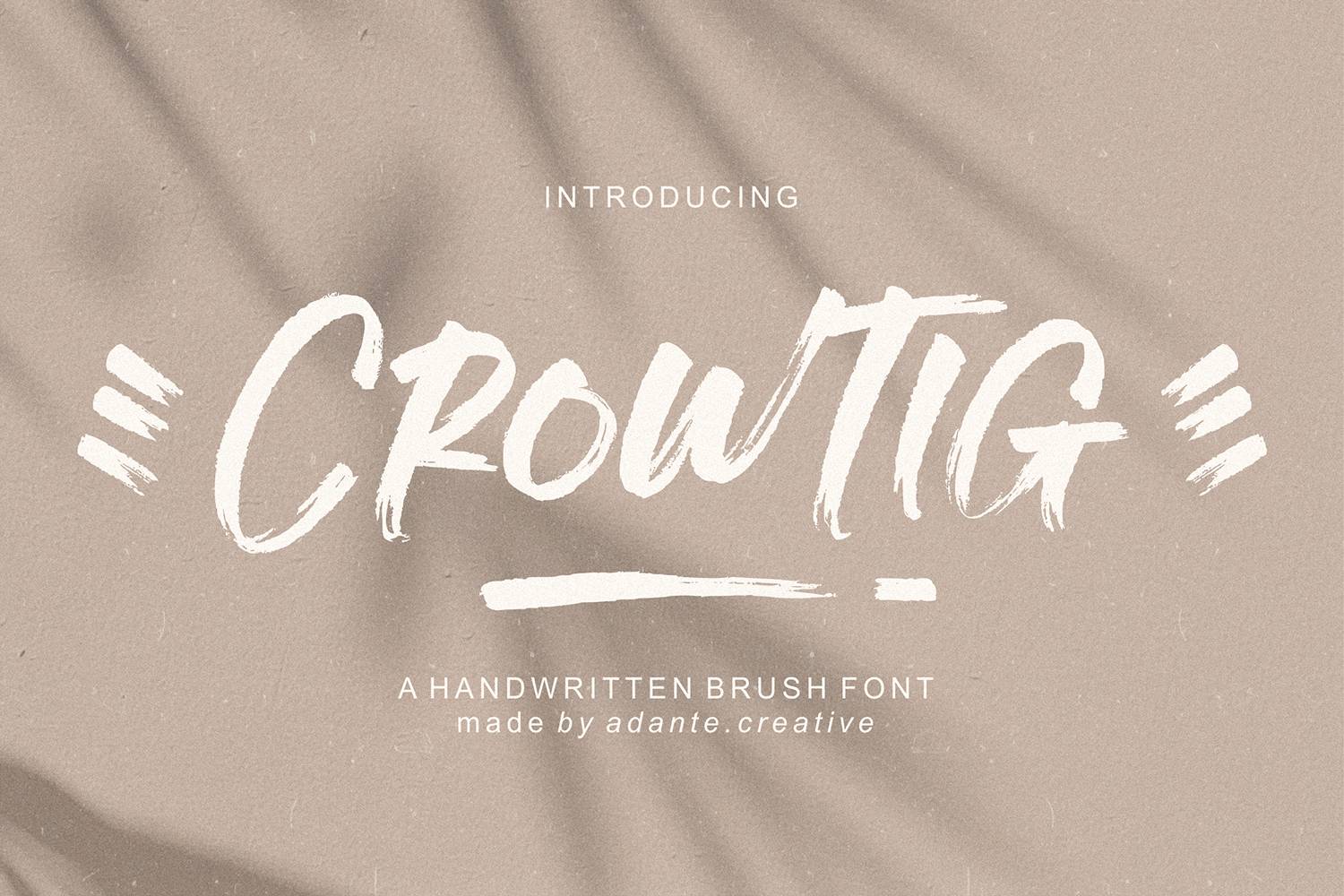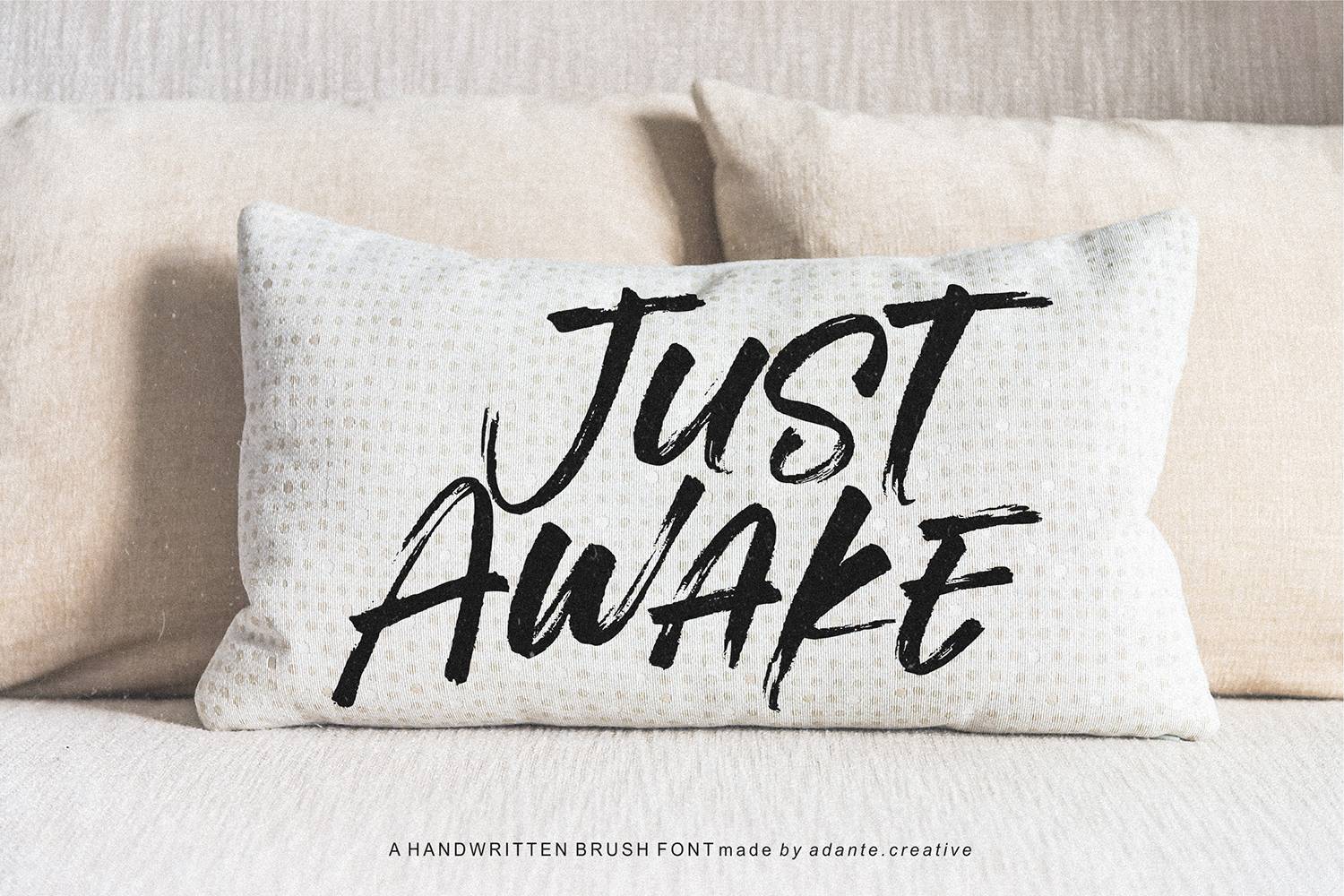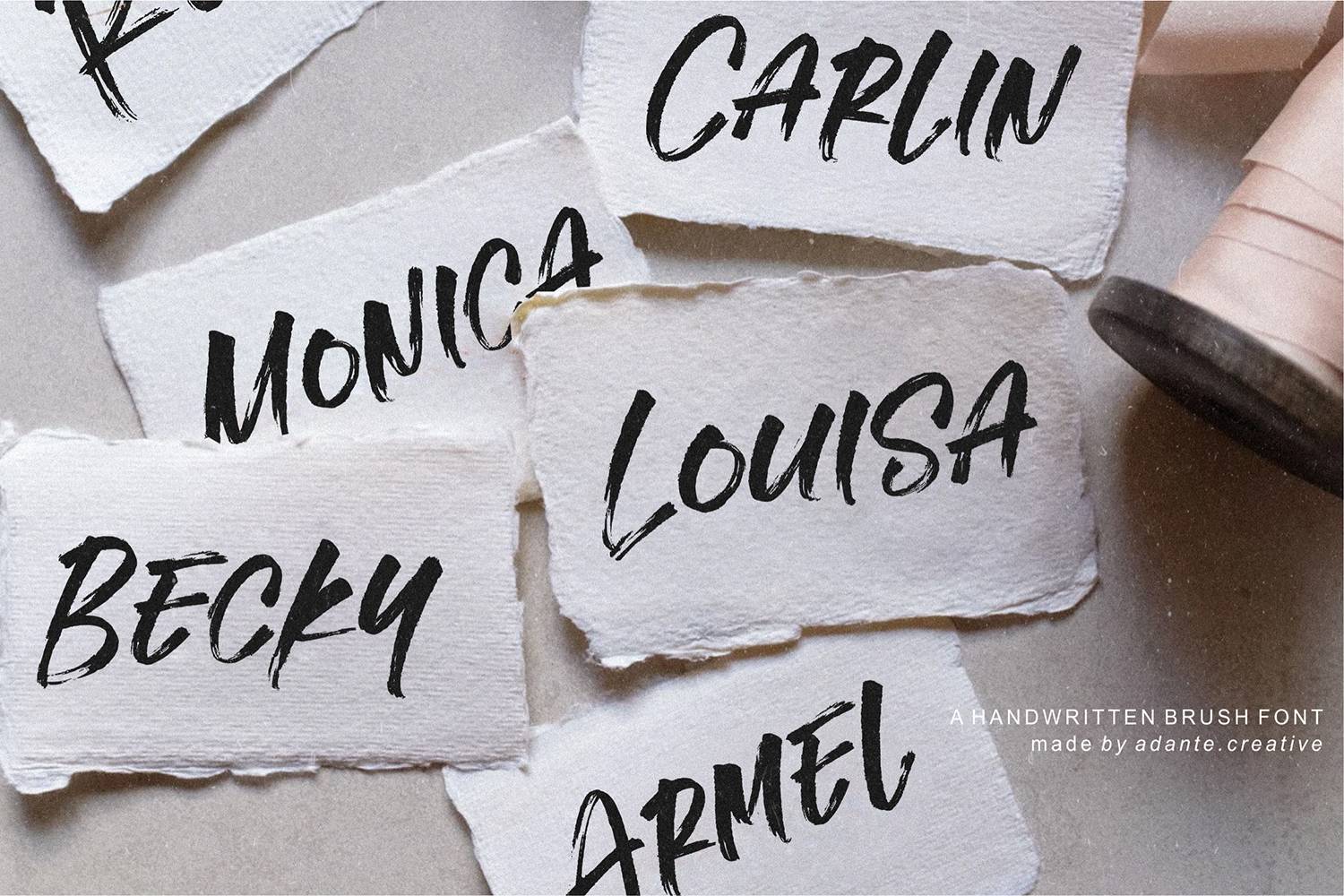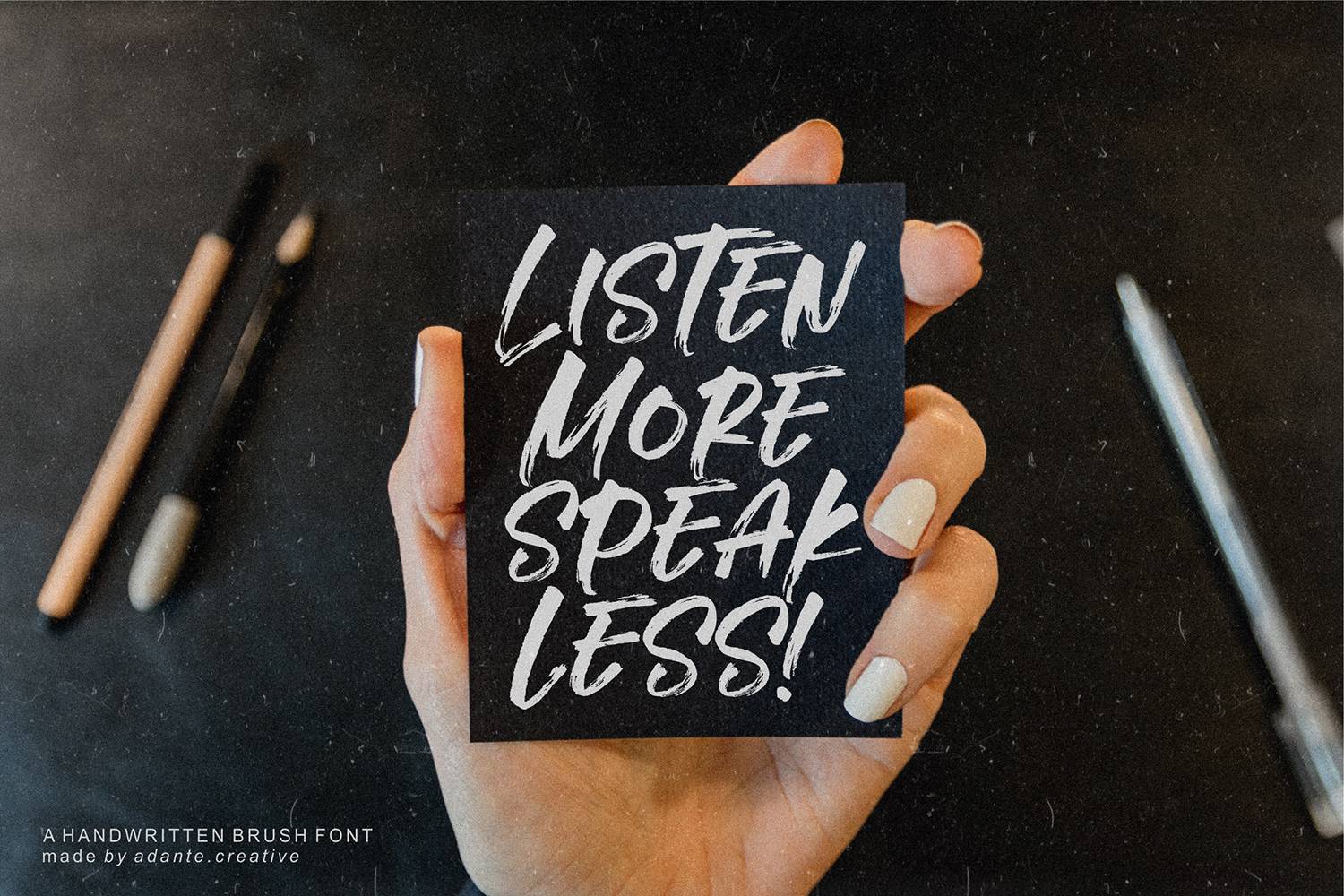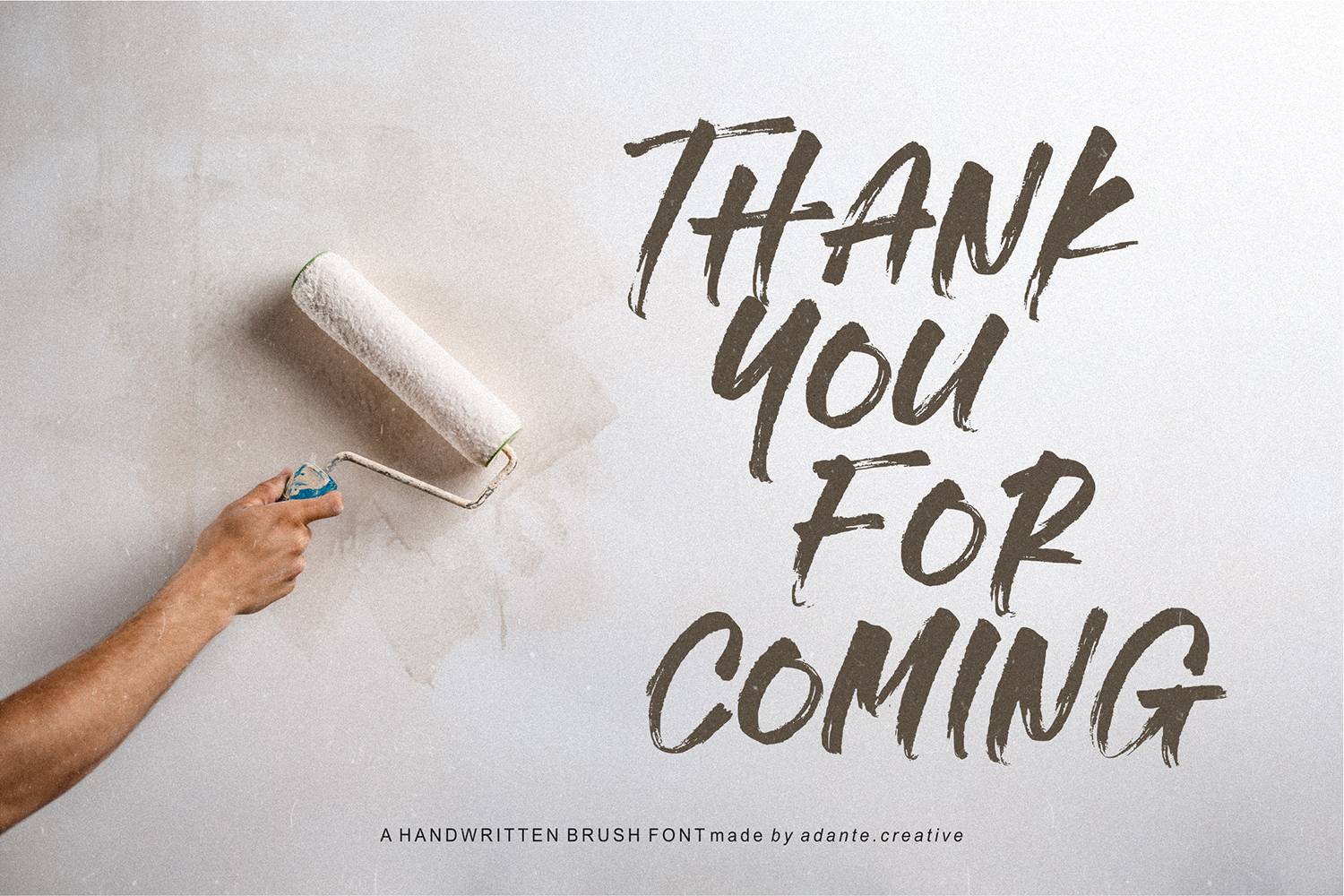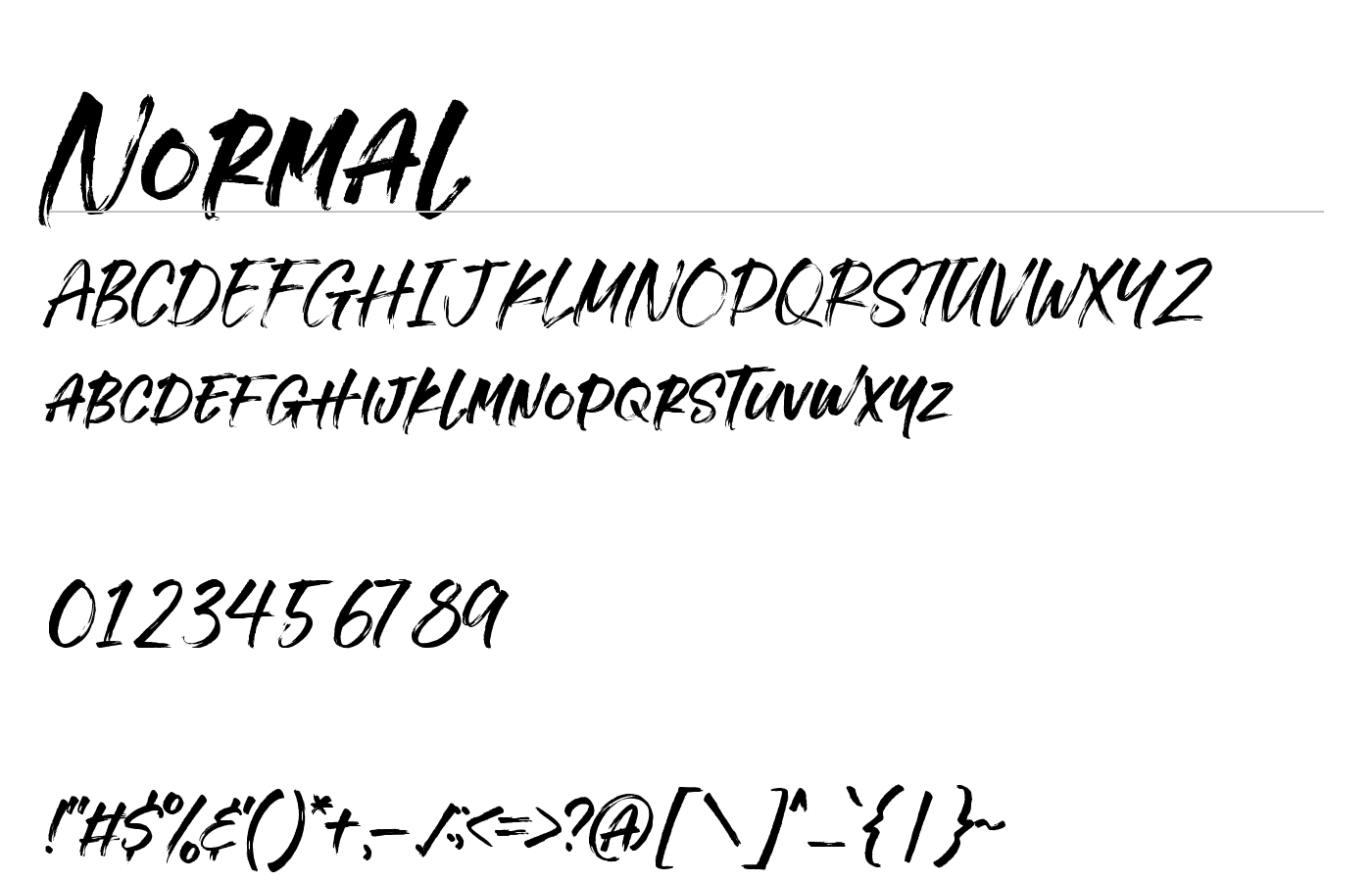
Crowtig is a bold, energetic brush script font that captures a hand-painted, artistic vibe with its textured, dynamic strokes and casual, informal style. Its tall, slightly condensed letterforms and lively rhythm make it ideal for creative branding, posters, or headlines where a natural, expressive look is desired. This font works well to convey a sense of movement and personality, perfect for projects seeking an edgy, handcrafted feel.
Crowtig Font
About Crowtig Font
| Font family | Crowtig Font |
| Designer | Adante Creative |